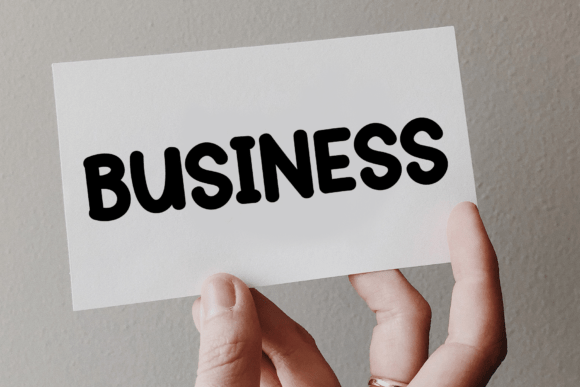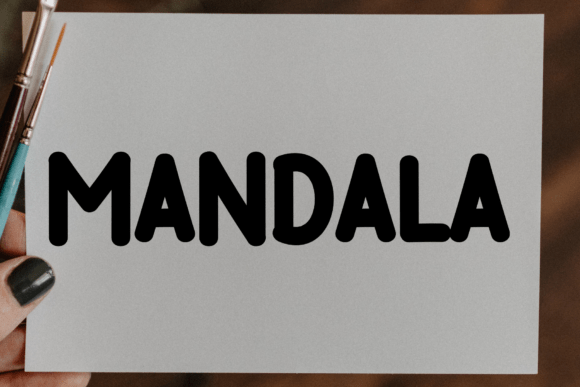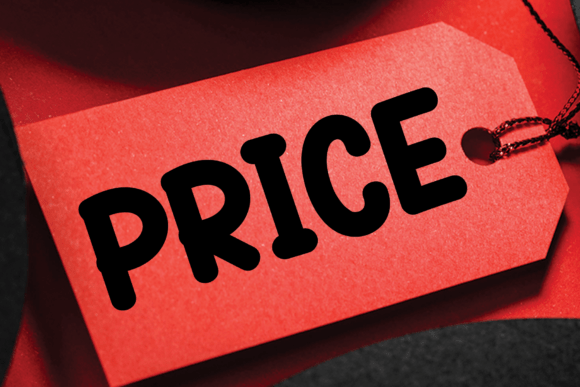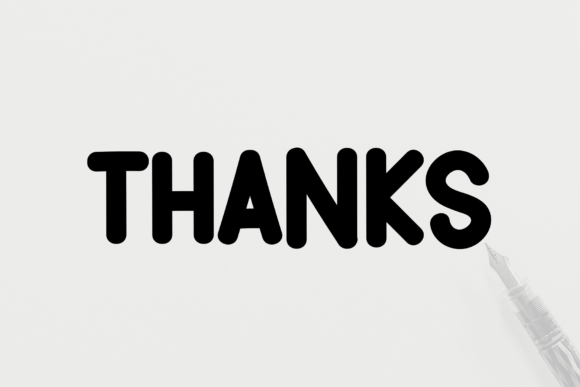
Introduction to Newyear Bold Font Font
Fonts play a crucial role in design, and the Newyear Bold Font font is a typeface that brings both character and versatility to any project. Whether you’re working on a branding project, a website, or a print design, the Newyear Bold Font font offers a unique style that can elevate your work.
Start the year off strong with Newyear Bold , a friendly and energetic display font designed to make your headlines pop.
Its rounded edges and thick letterforms give it a cheerful personality that’s perfect for holiday graphics, greeting cards, posters, and playful branding Whether you’re ringing in the New Year or just adding bold flair to your message, this font delivers eye-catching style with a festive tou.
Key Features of Newyear Bold Font Font
Why Choose Newyear Bold Font Font?
The Newyear Bold Font font is more than just a typeface – it’s a design tool that helps you communicate your message with style and clarity. Its unique character set and versatile design make it suitable for a wide range of applications, from elegant invitations to bold headlines.
With its carefully crafted letterforms and balanced proportions, the Newyear Bold Font font ensures readability and visual appeal across all mediums.
What makes Newyear Bold Font font special?
The Newyear Bold Font font stands out with its unique design, exceptional readability, and versatility across various design applications.